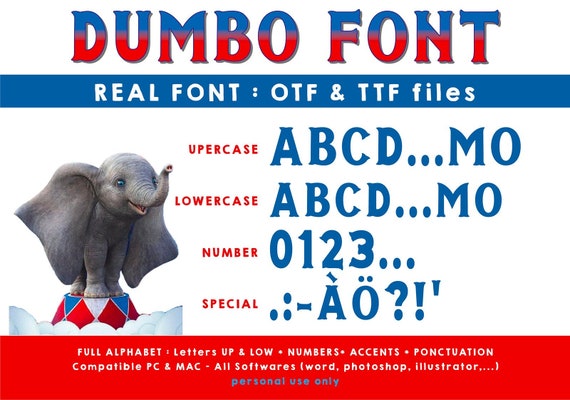
By Partyummy
The best way to personalize a Dumbo birthday with invitations, labels, banners or even the big title name which decorate the sweet table !
What you'll find in the font :
- upper from A to Z
- lower from a to z
- numbers from 0 to 9
- ponctuation : @ ' , . : ; ! ? - _ / | \ #
- accents : à â ä é è ê ë ï î ñ ô ö ù û ü